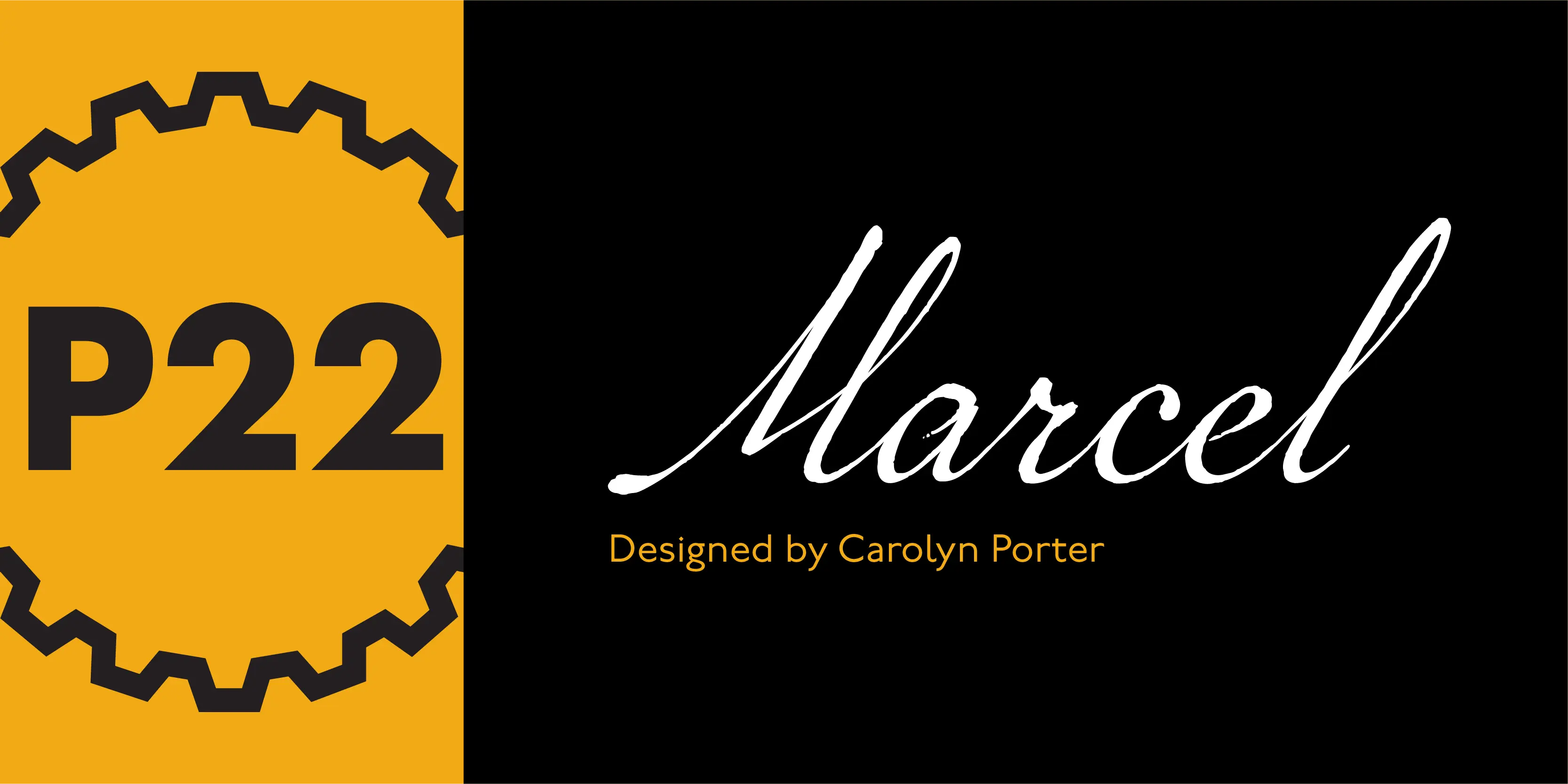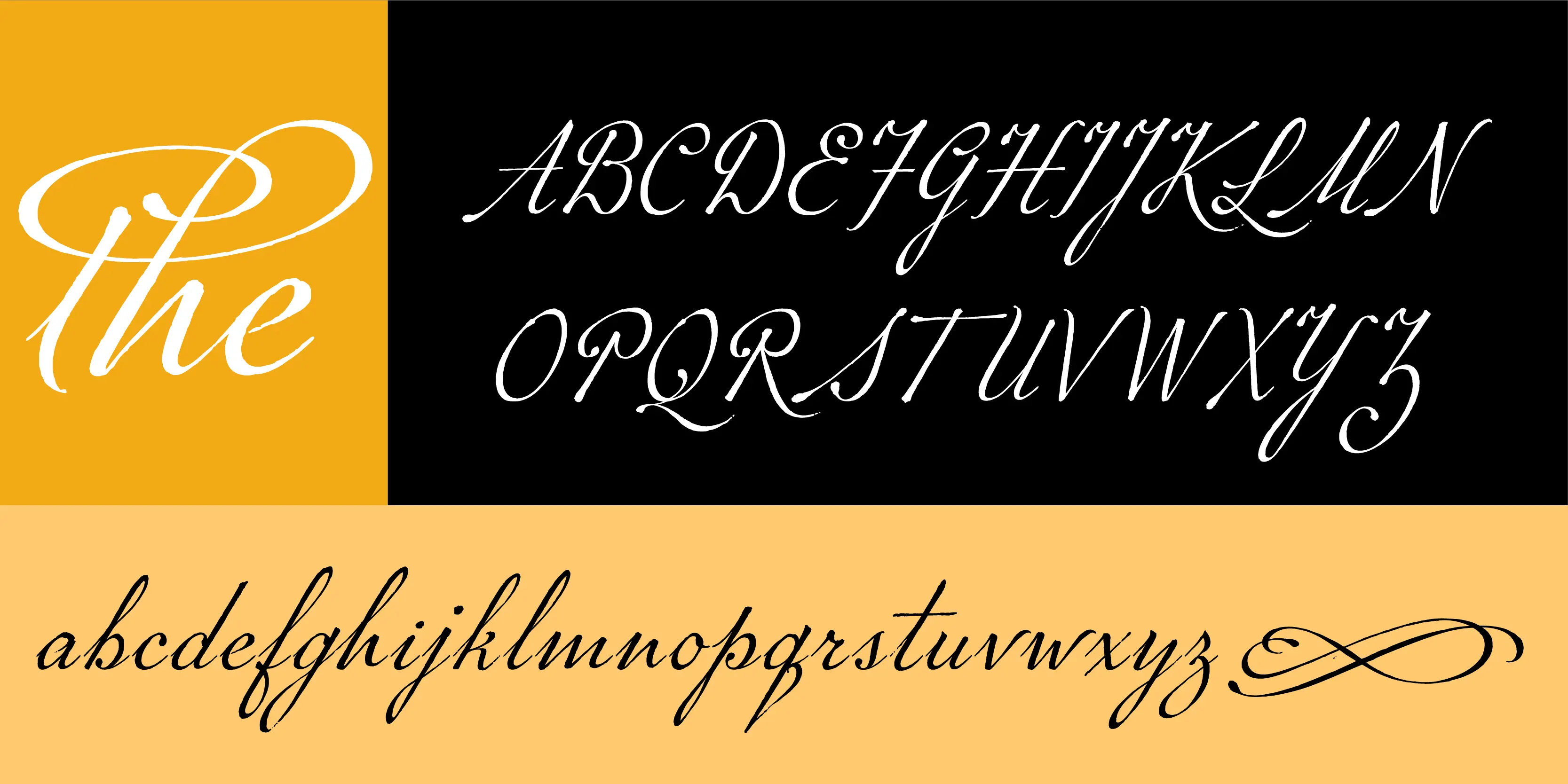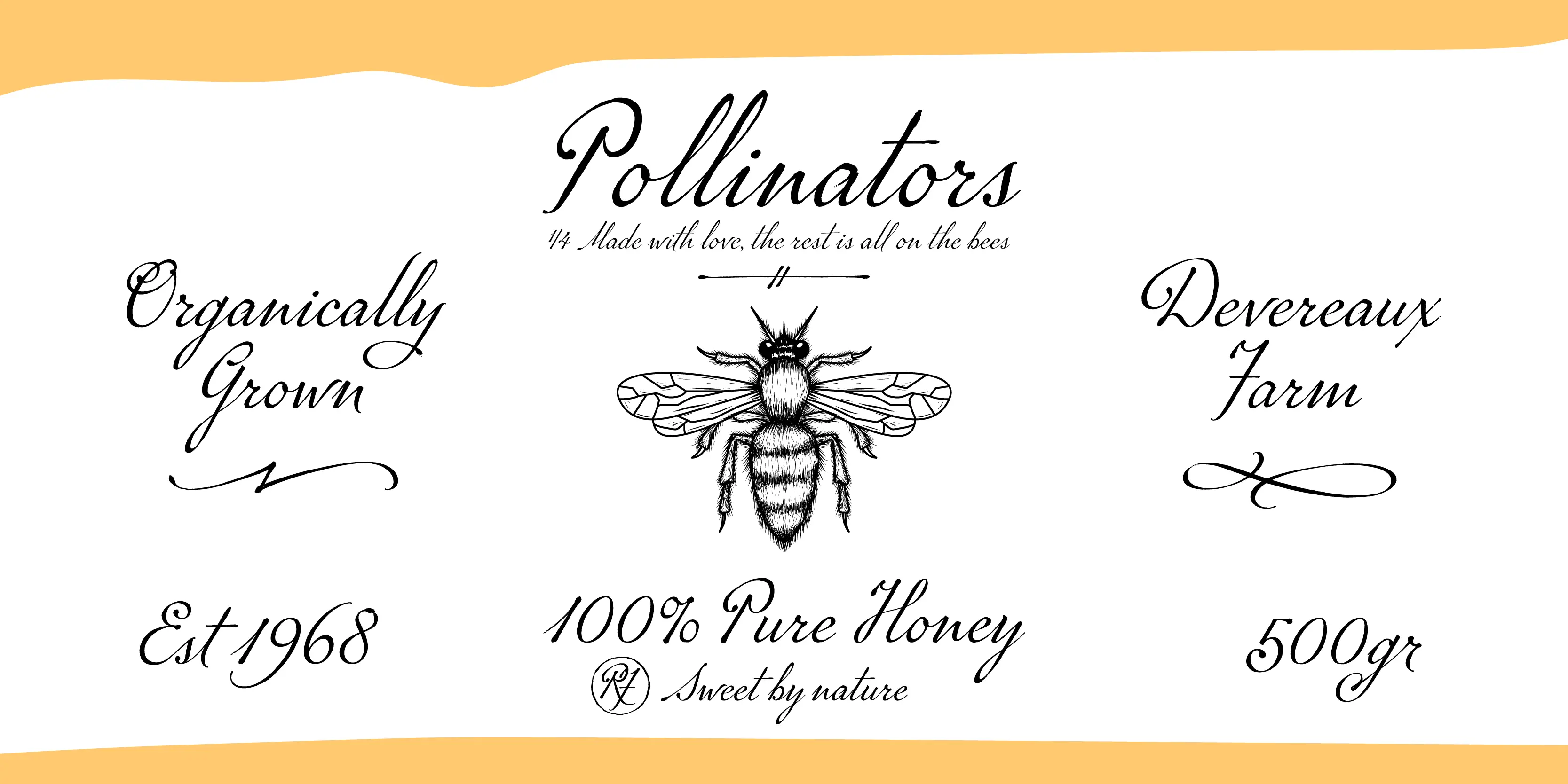
Marcel Font Family
Marcel
The font Marcel is named in honor of Marcel Heuzé, a Frenchman who was conscripted into labor during World War II. During the months Marcel was in Germany, he wrote letters to his beloved wife and daughters back home in rural France. Marcel’s letters contain rare first-person testimony of day-to-day survival within a labor camp, along with the most beautiful expressions of love imaginable. The letters — stained and scarred with censor marks — were the original source documents used by designer Carolyn Porter to create a script font that retains the expressive character of Marcel Heuzé’s original handwriting.
The result of years of research and design work, Marcel Script Pro® features more than 1300 glyphs. The font is a highly readable running script that includes textural details that capture the look of ink on paper. The font Marcel Caps is a hand-lettered titling face intended as a companion to the Script. Marcel EuroPost One and Two each feature more than 200 postmarks, cancellation and censor marks, and other embellishments found on historical letters and documents.
Marcel has received multiple awards and honors, from: New York Type Director’s Club, a Certificate for Typographic Excellence; Communication Arts magazine; PRINT magazine; and AIGA-Minnesota. Marcel was also selected for the international 2015 Project Passion exhibition.
The story of the design of the font is woven together with Carolyn’s fervent search for information about Marcel in the book Marcel’s Letters: A Font and the Search for One Man’s Fate (Skyhorse Publishers, June 2017).
Contextual Alternates
Swashes
Stylistic Set 1
Stylistic Set 2
Stylistic Set 3
Stylistic Set 6
Stylistic Set 7
Stylistic Set 8
Stylistic Set 9
Stylistic Set 10
Stylistic Set 11